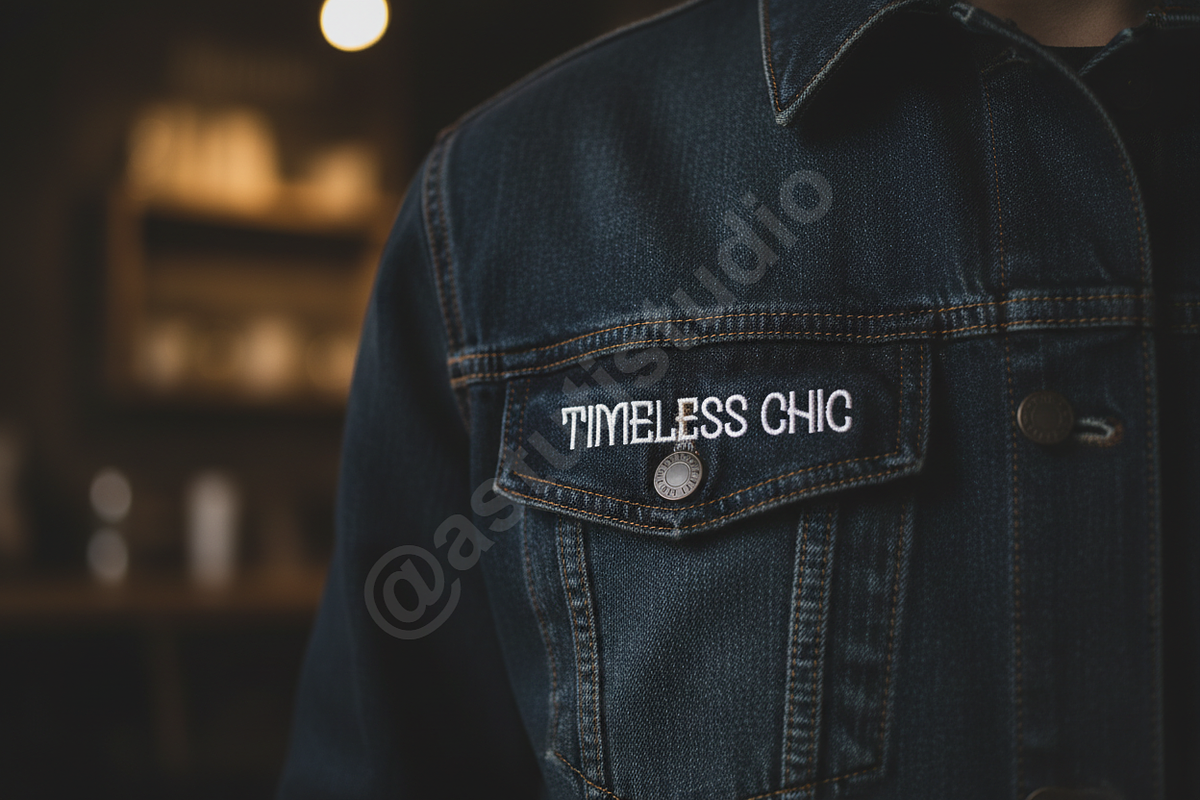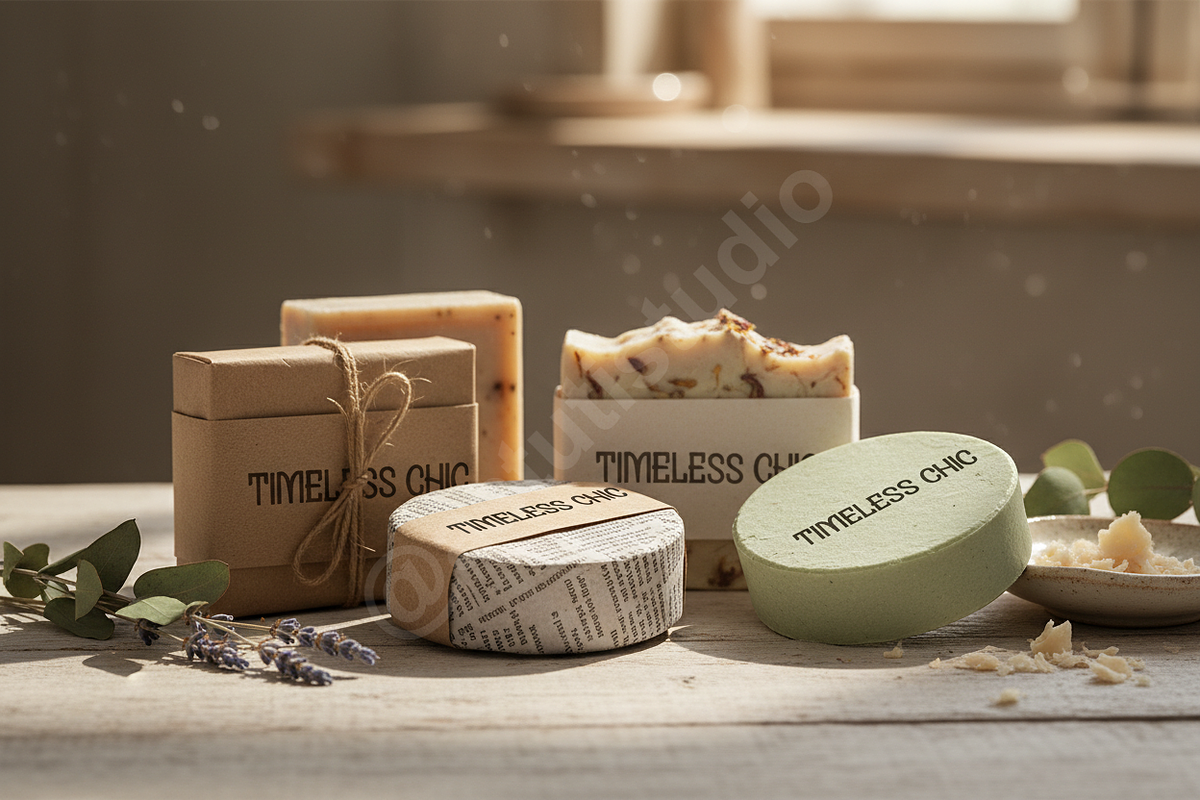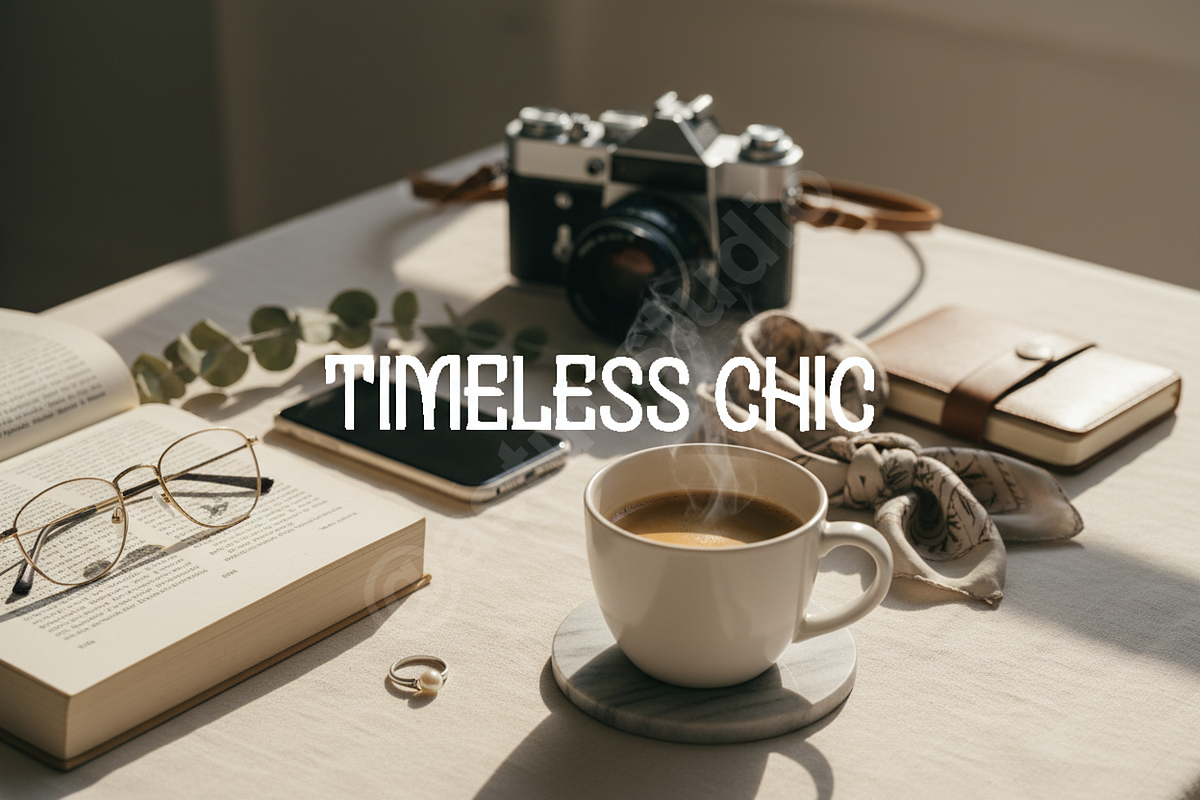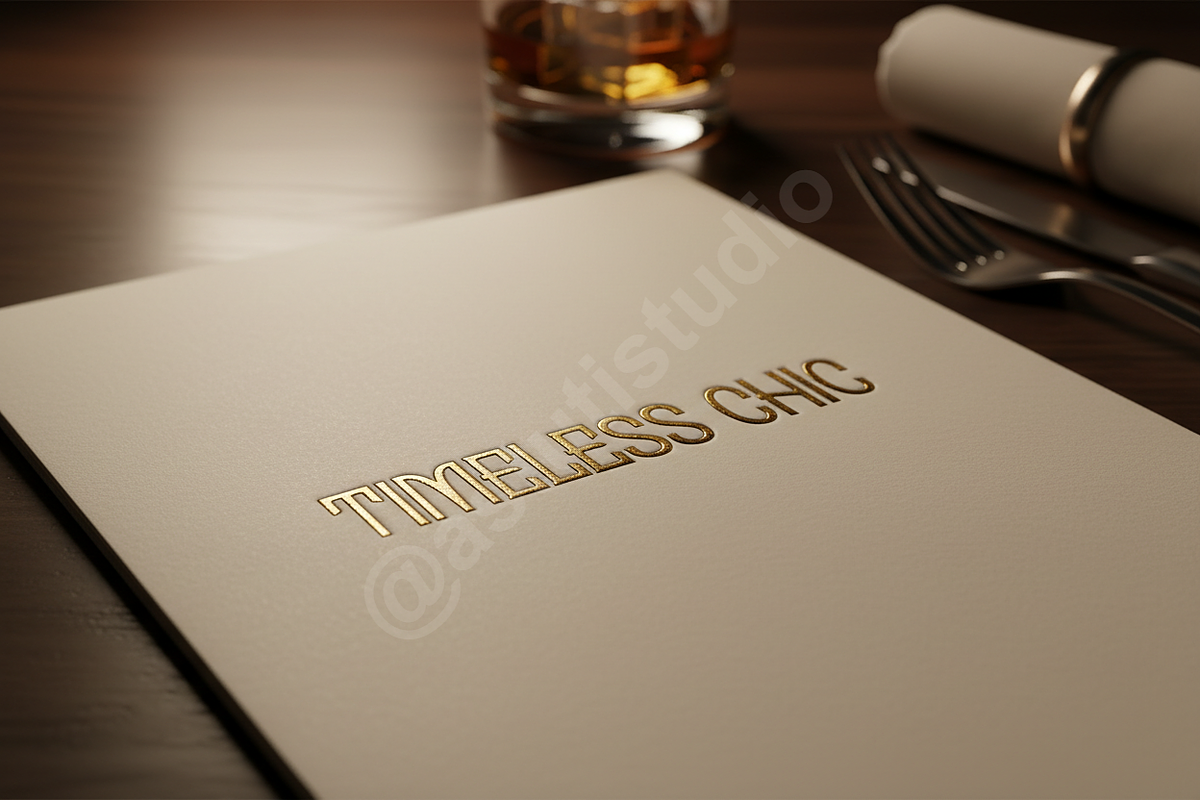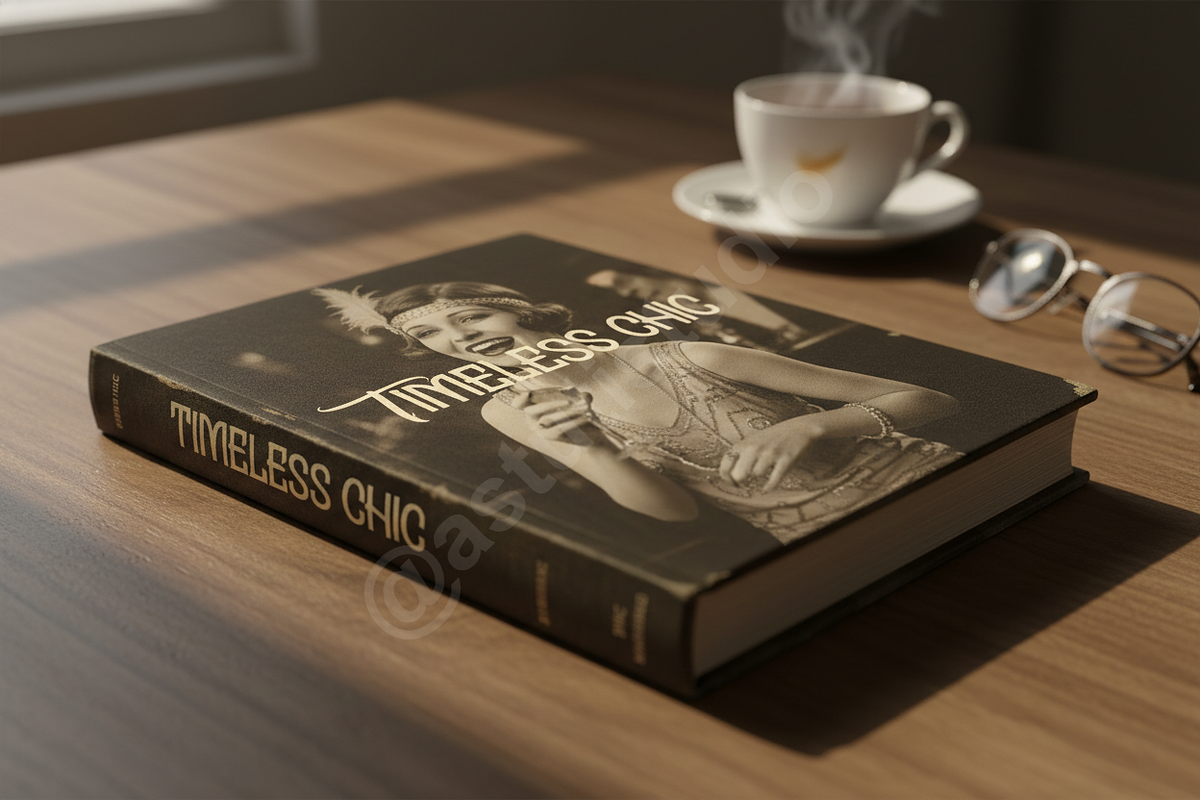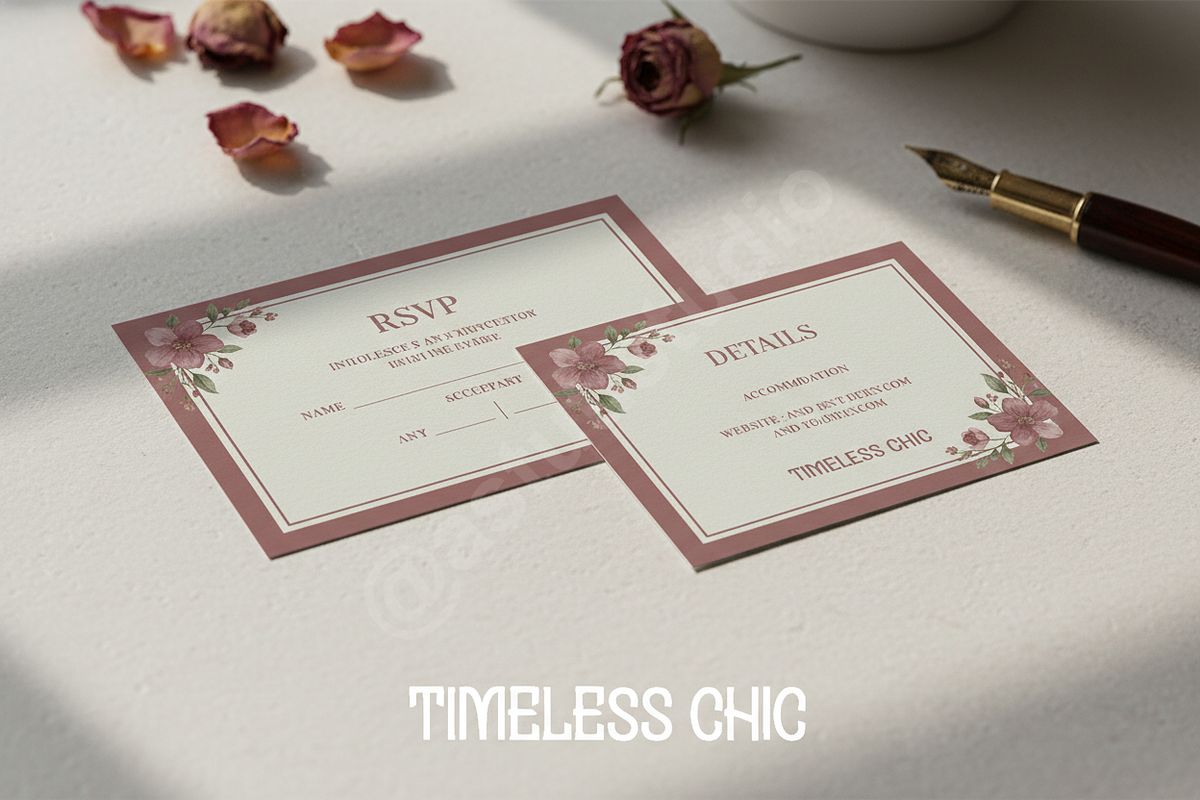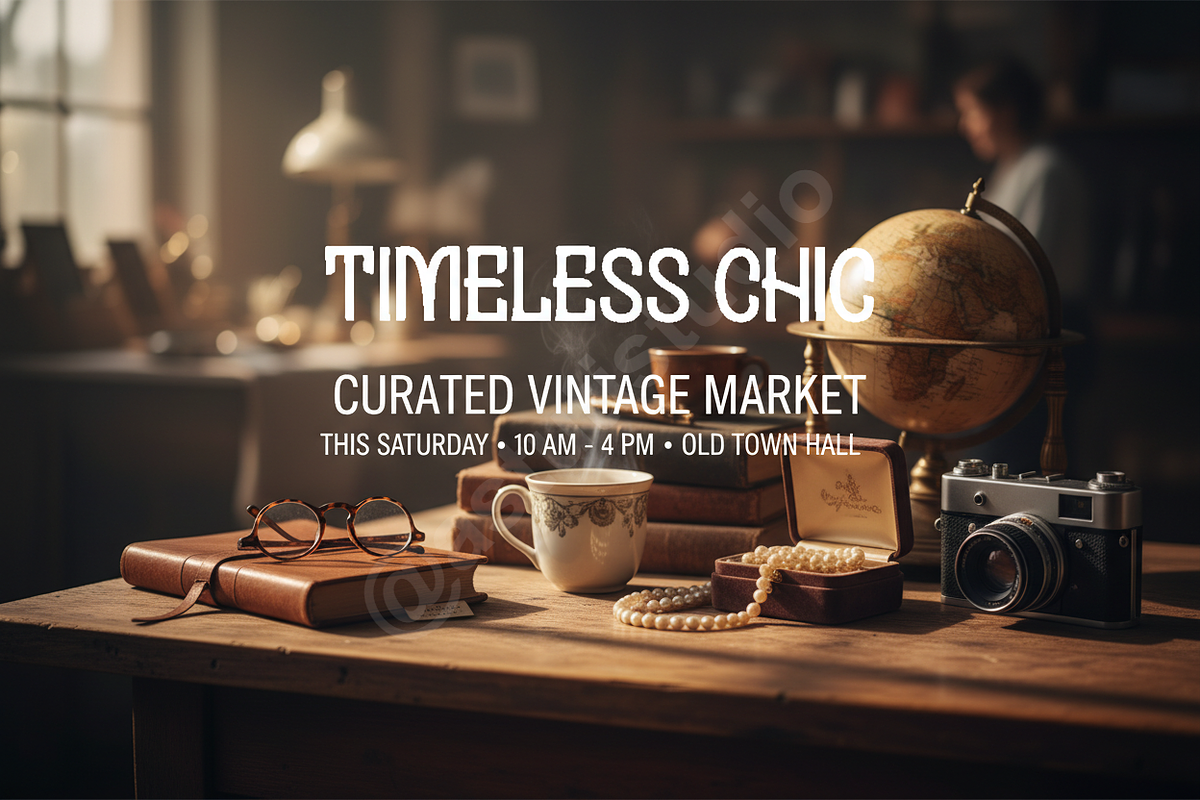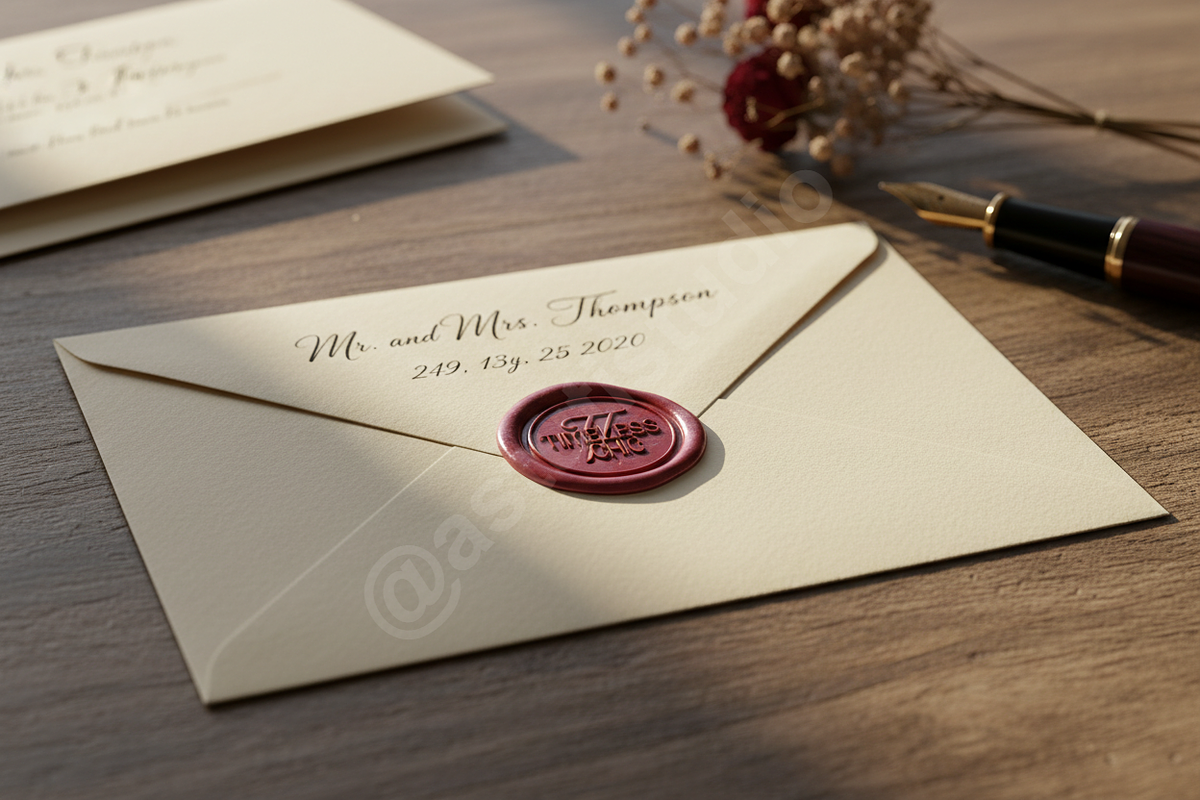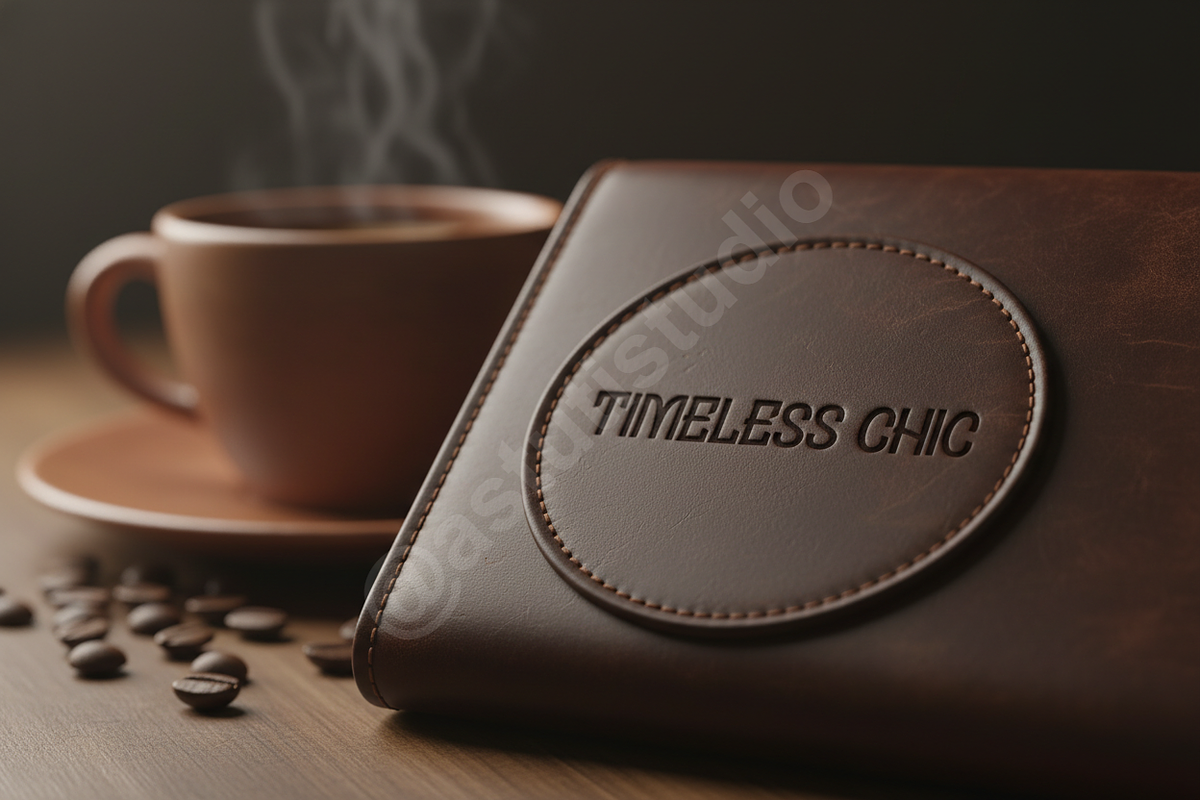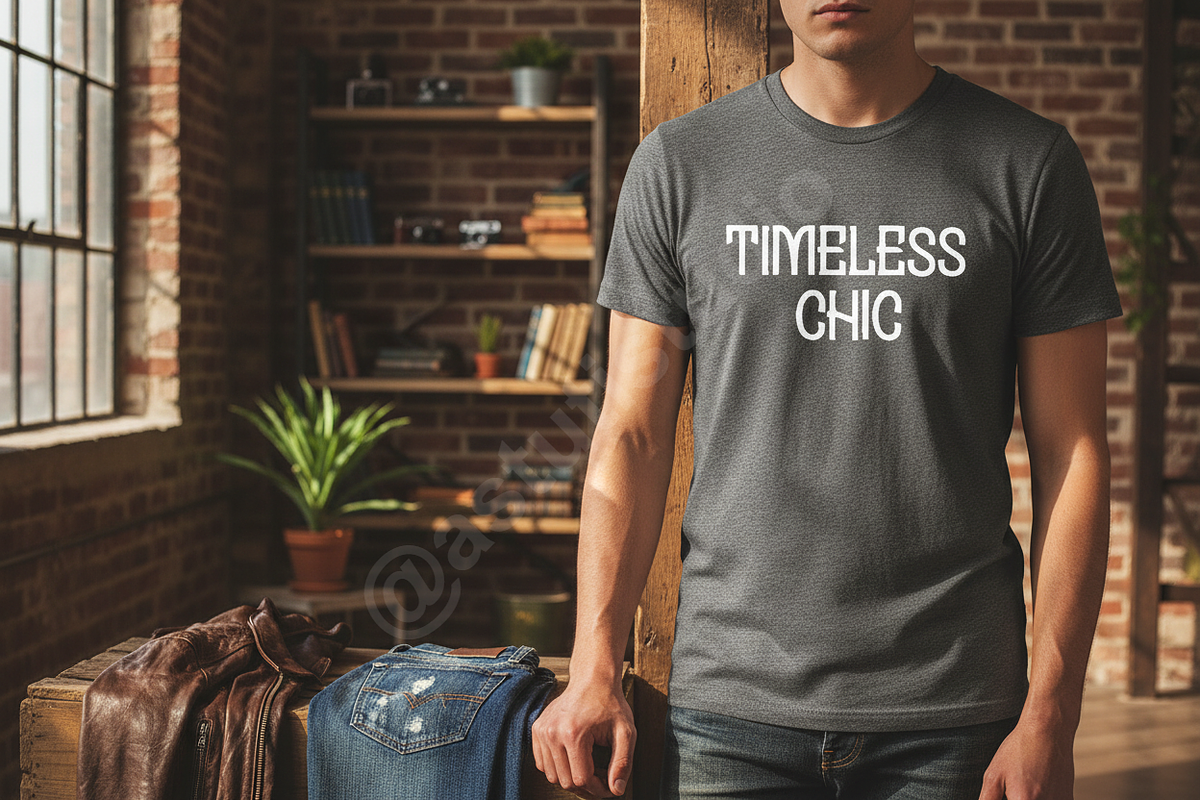
Fodufi - Luxury Modern Display Serif
INTRODUCTION
Fodufi is a meticulously crafted modern serif typeface designed for sophisticated visual communication. It embodies timeless elegance with contemporary flair, featuring delicate curves and sharp, precise terminals. Fodufi is the essential typographic centerpiece for studios aiming for a luxurious and authoritative aesthetic, ensuring your brand identity resonates with premium quality. It is perfectly optimized for luxury branding, high-end editorial layouts, and impactful social media campaigns.
KEY FEATURES
- Four Distinct Weights: Light, Regular, Semibold, and Bold, providing comprehensive hierarchy options.
- Extensive OpenType Features: Includes elegant Ligatures, contextual alternates, and stylistic sets for unique customization.
- Perfectly Balanced: Optimized for both large-scale headlines (editorial, posters) and detailed body text (packaging, web).
- Premium Versatility: Ideal for magazine mastheads, bespoke packaging, corporate reports, and cinematic titles.